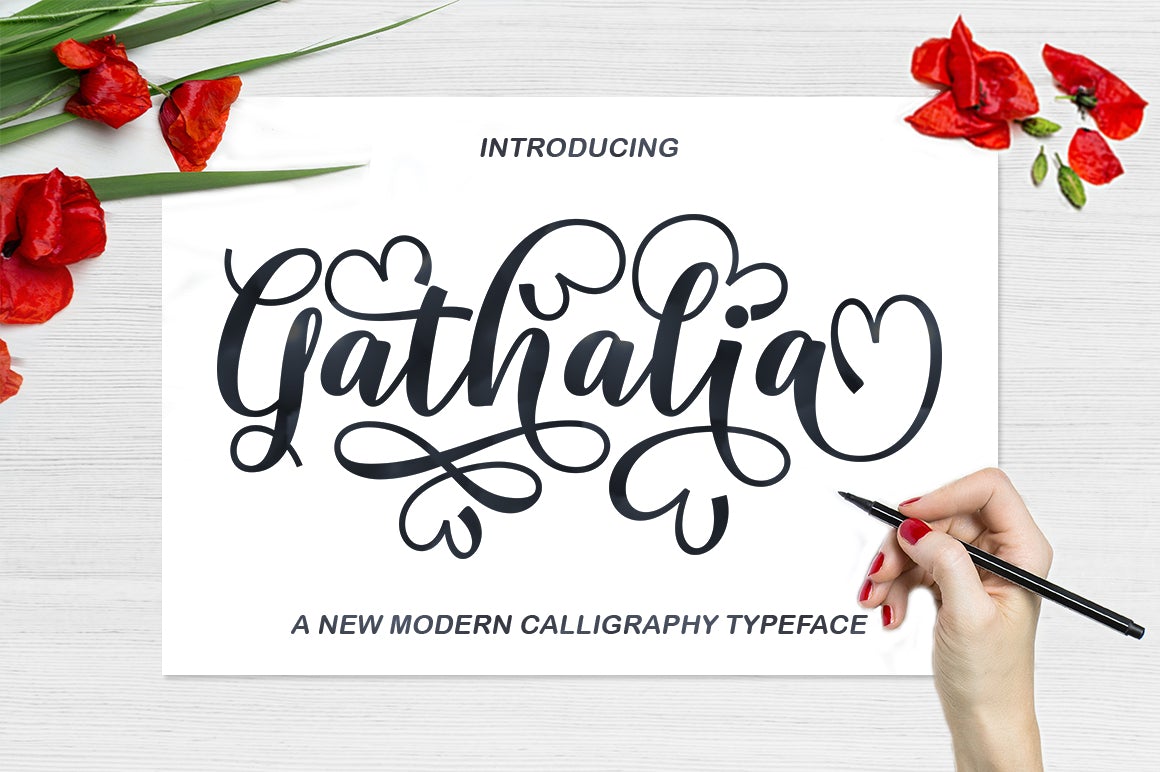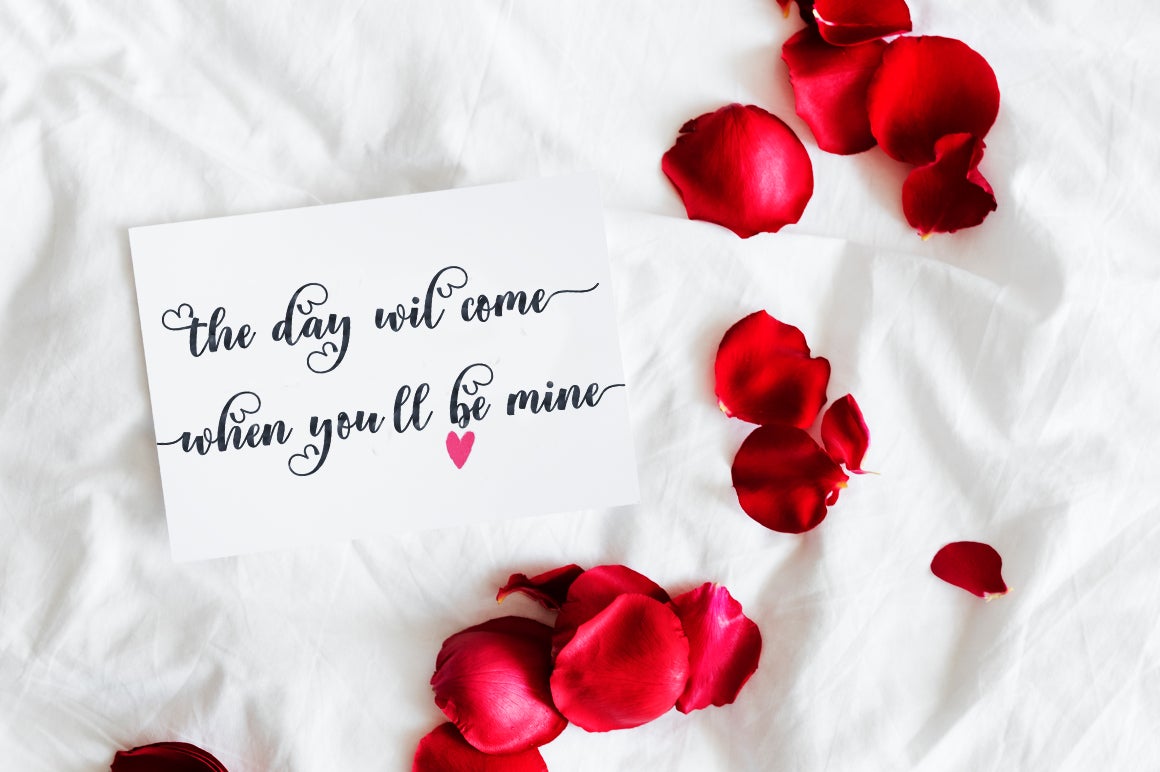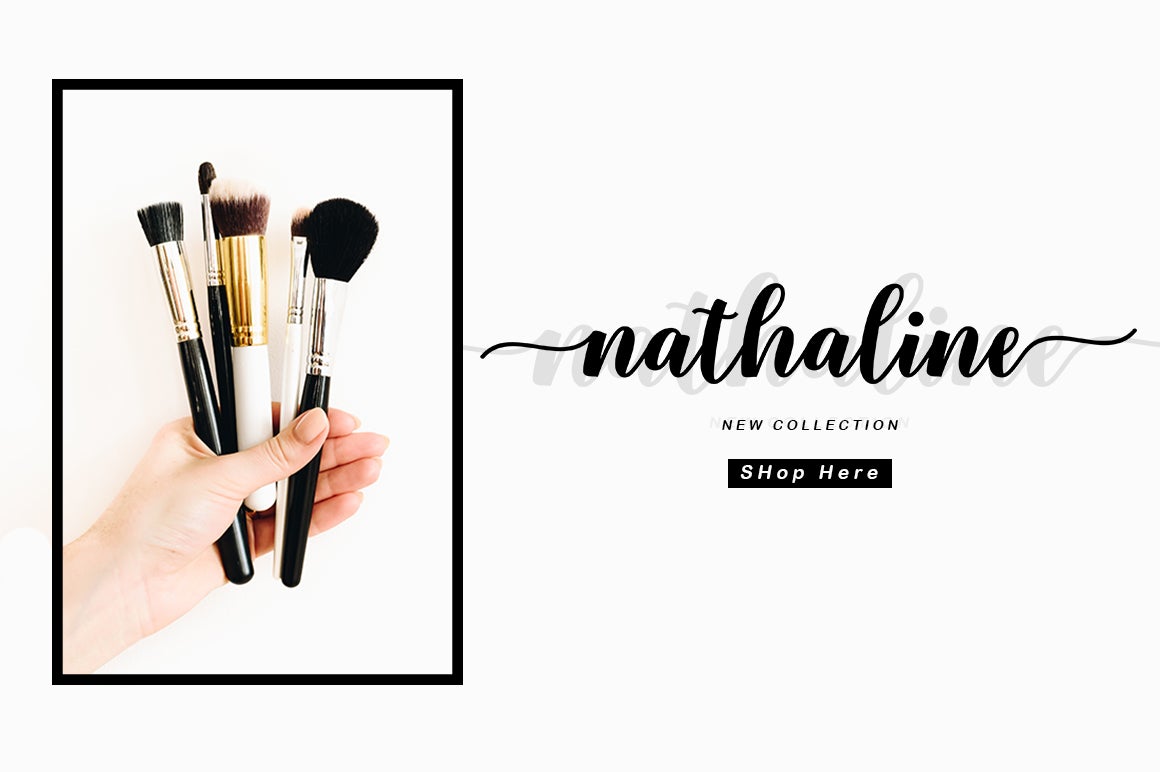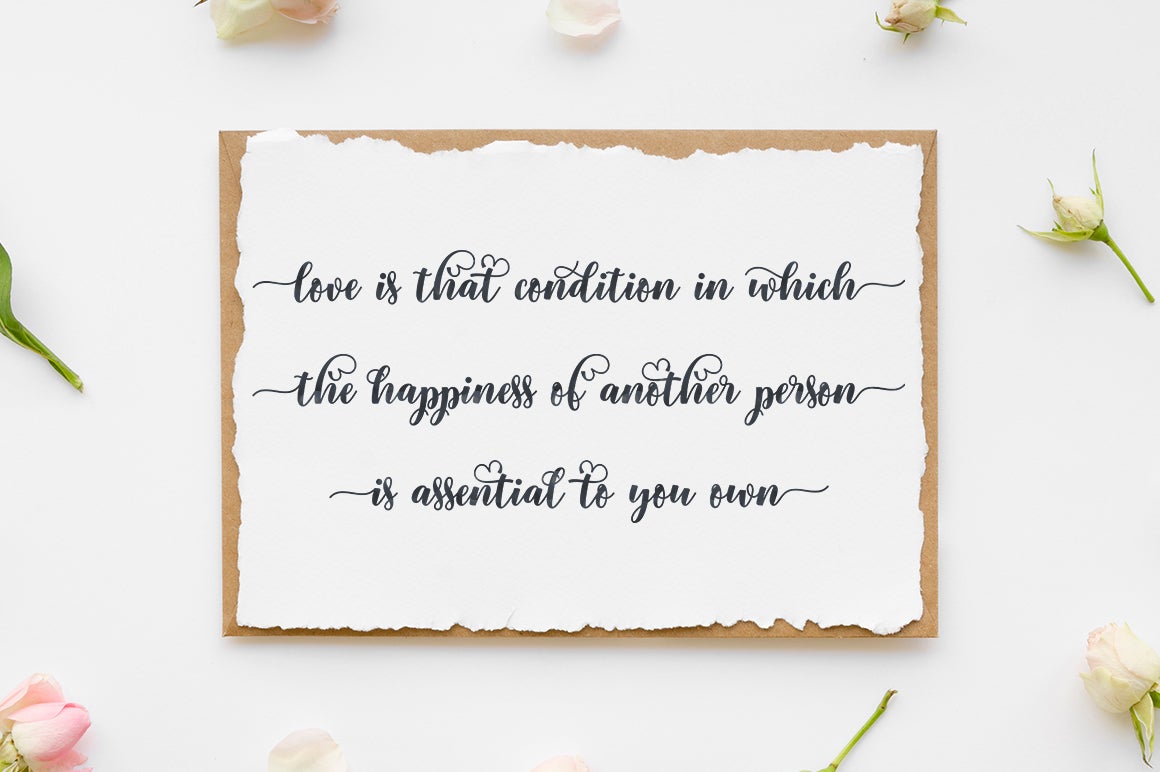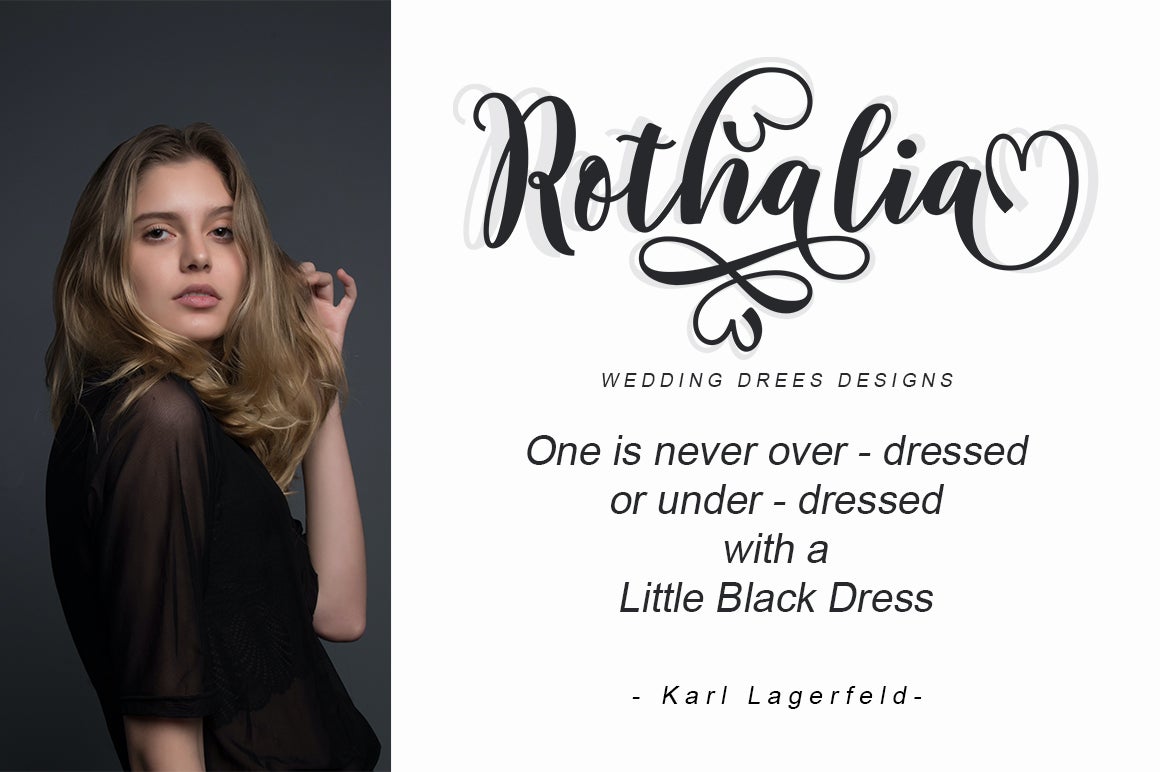
Gathalia
About Gathalia
Introducing Gathalia in a beautiful handwritten style. Equipped with 381 glyphs. Gathalia is perfect for branding projects, home appliance design, product packaging, use in business cards, invitation cards, etc. Simply as a stylish text overlay onto a background image or anything that requires a touch of elegance. -Files include: -Gathalia : OTF – Gathalia : TTF